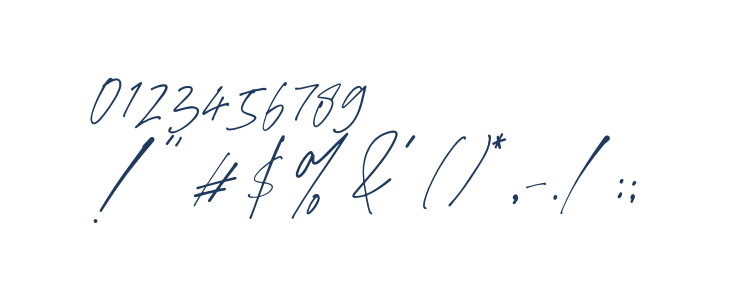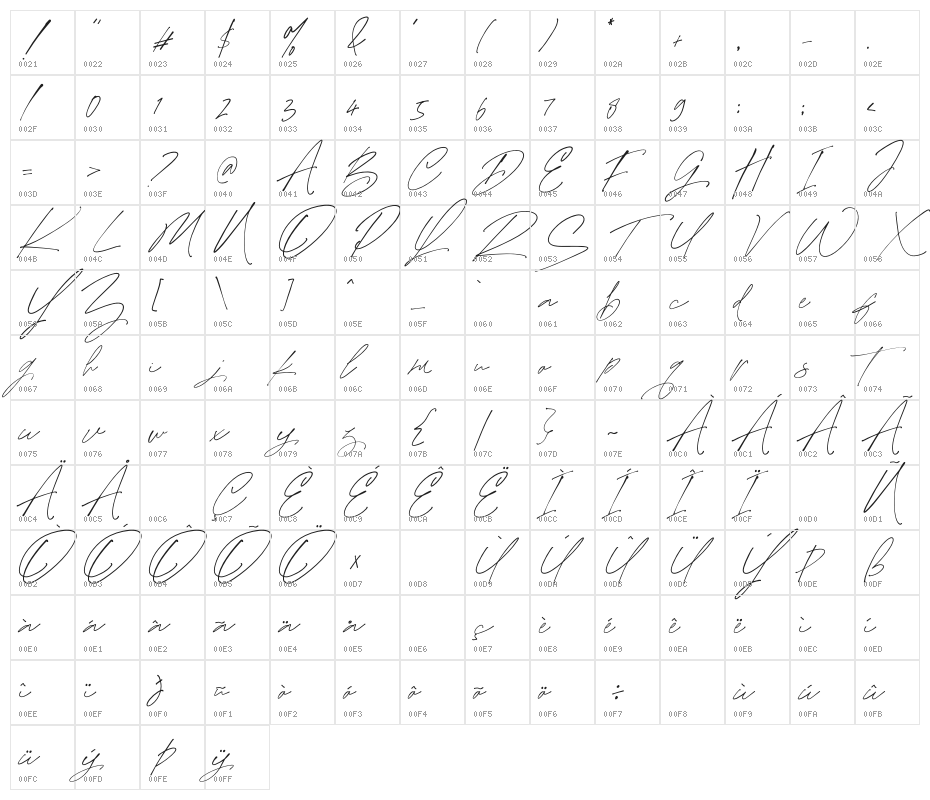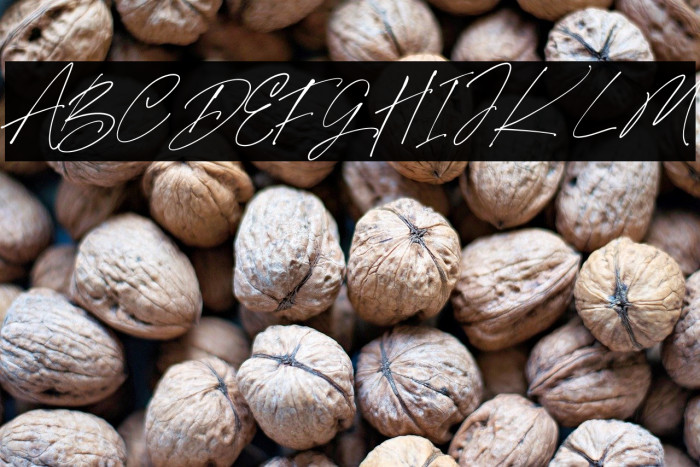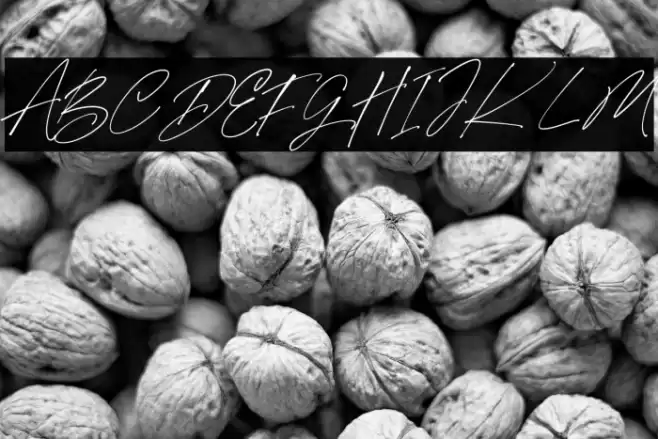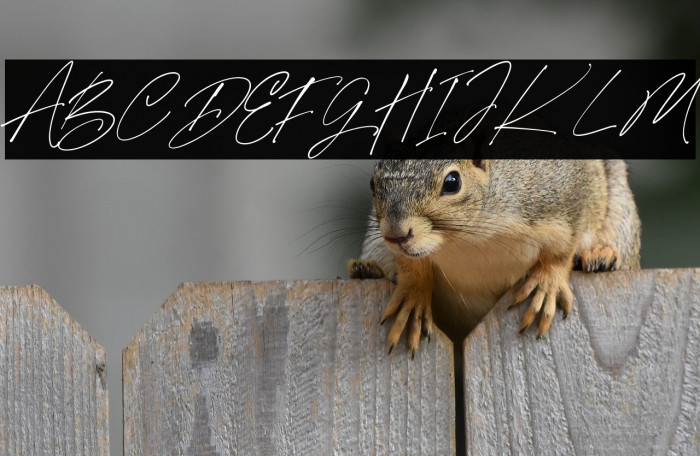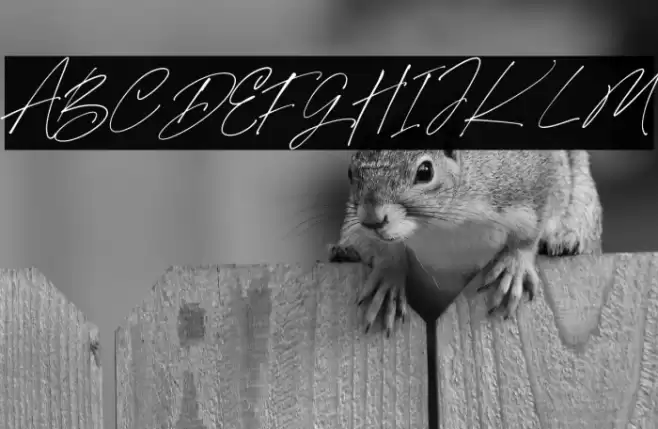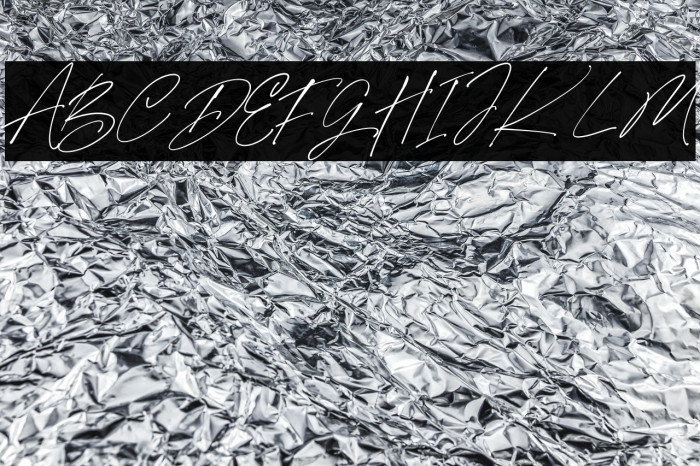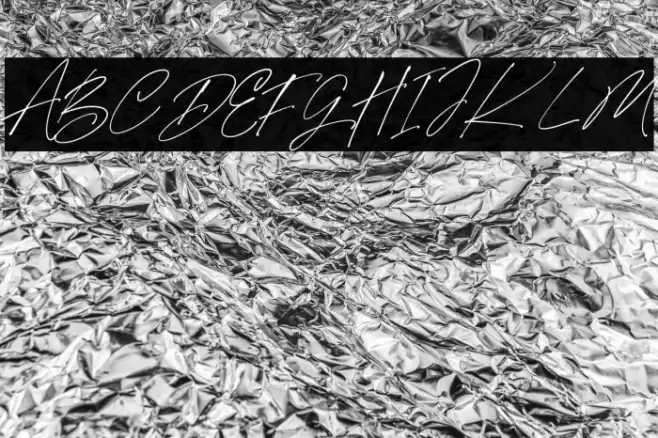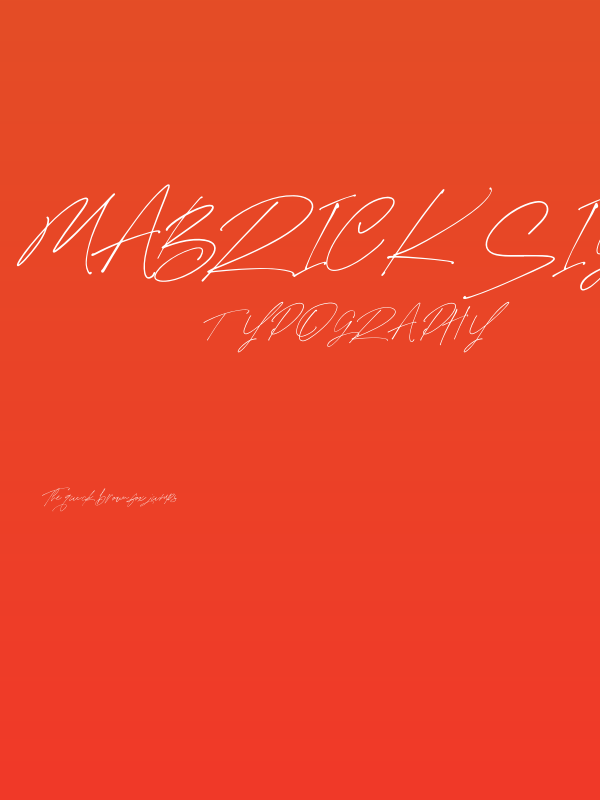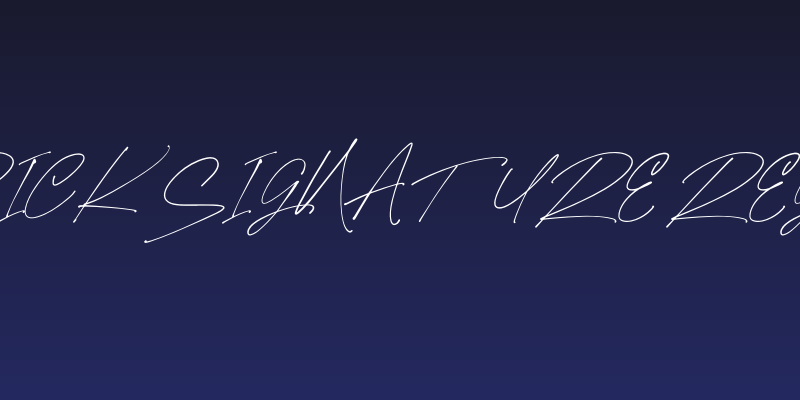
Mabrick Signature Regular Font
Mabrick Signature Regular Description
This font exudes a sophisticated and elegant handwritten style, characterized by its fluid and continuous strokes. The letters are connected in a cursive manner, giving it a personal and intimate feel. The uppercase letters maintain a consistent height, while the lowercase letters exhibit a graceful flow with occasional loops and flourishes. The numerals are distinct yet harmonize well with the overall script style. Special characters are crafted with the same attention to detail, ensuring a cohesive appearance across all glyphs. The font's thin strokes and delicate curves make it ideal for projects that require a touch of elegance and personalization.
| Proposed Projects | Ideal for wedding invitations, personal branding, greeting cards, and elegant stationery. |